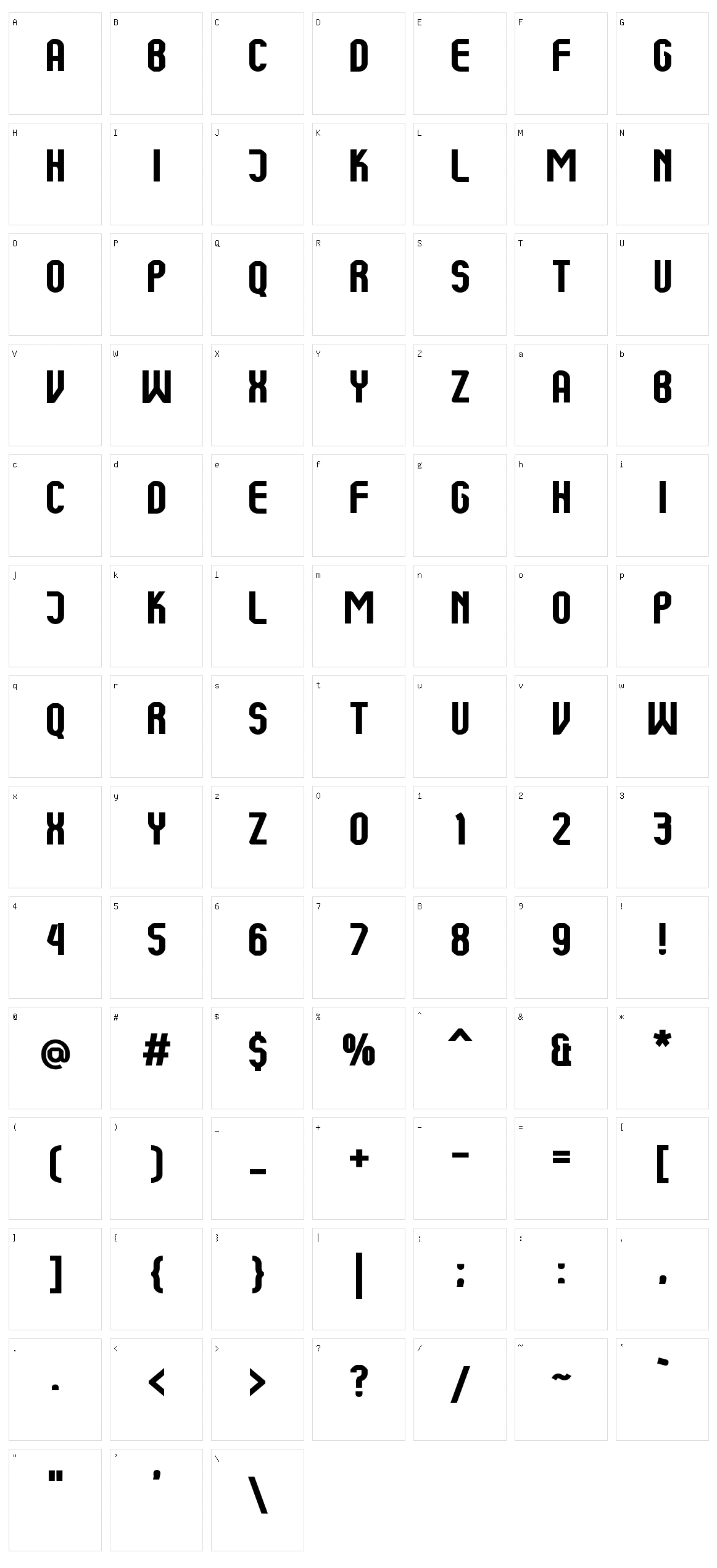
Kumba is inspired by classic typography and brings its own unique style to any design project. This fantastic sans serif font is best suited for headlines of all sizes, as well as for blocks of text that have both maximum and minimum variations. Whether its for web, print, moving images or anything else Kumba will look spectacular.